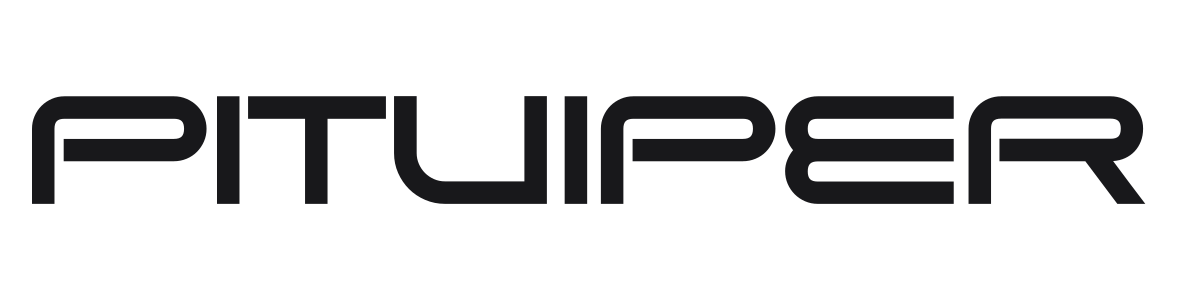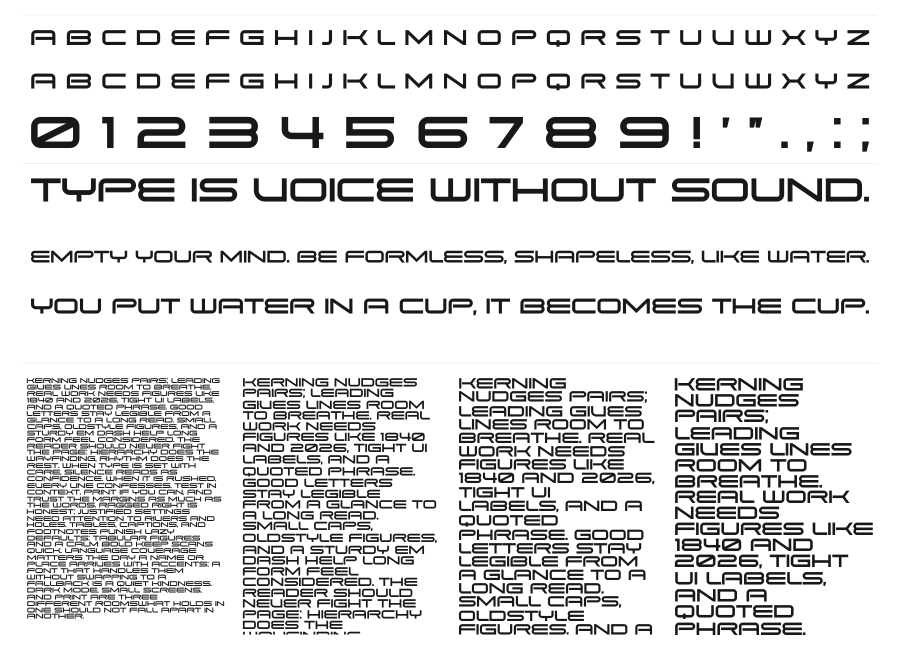
Pitviper
Pitviper is a wide geometric techno sans with squared rounded terminals and a flat monoweight stroke throughout. The letters sit between a Eurostyle influence and a sharper, more aggressive sci-fi sensibility. It reads confidently at large sizes in logos, headlines, and anywhere that needs a mechanical edge.